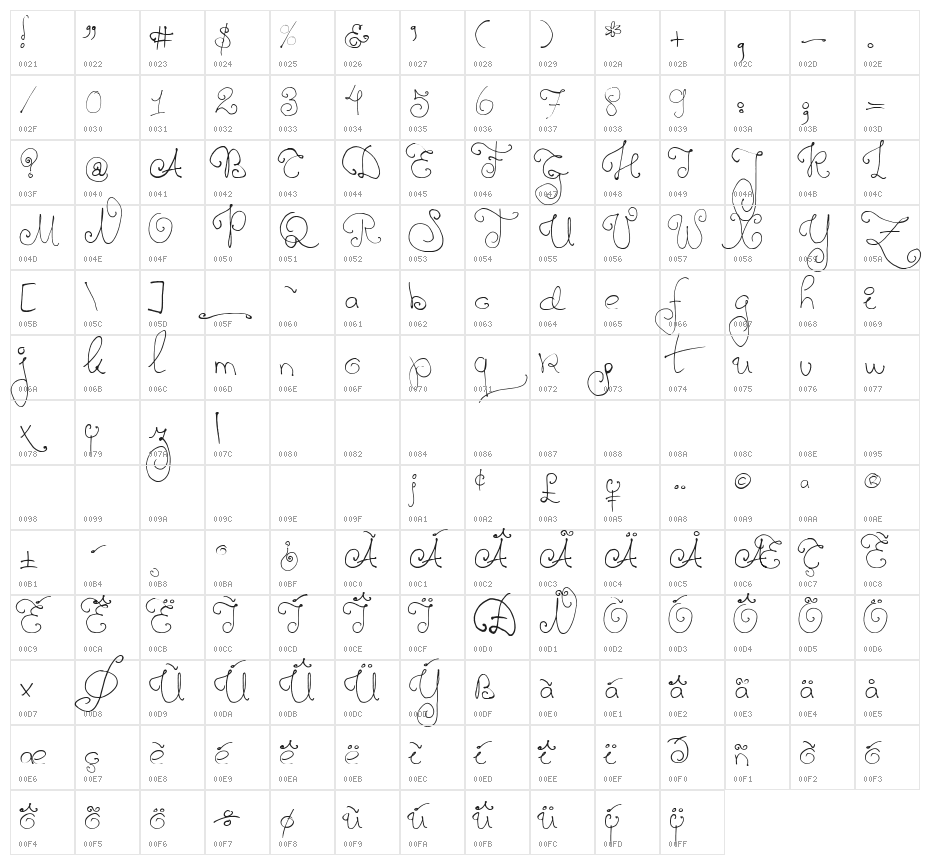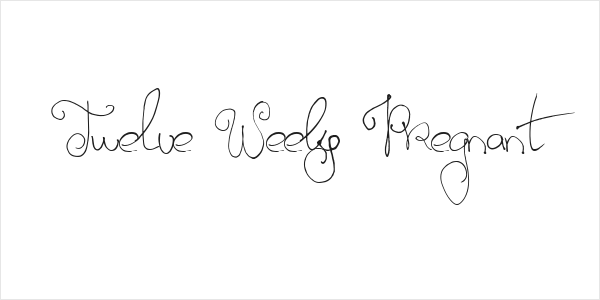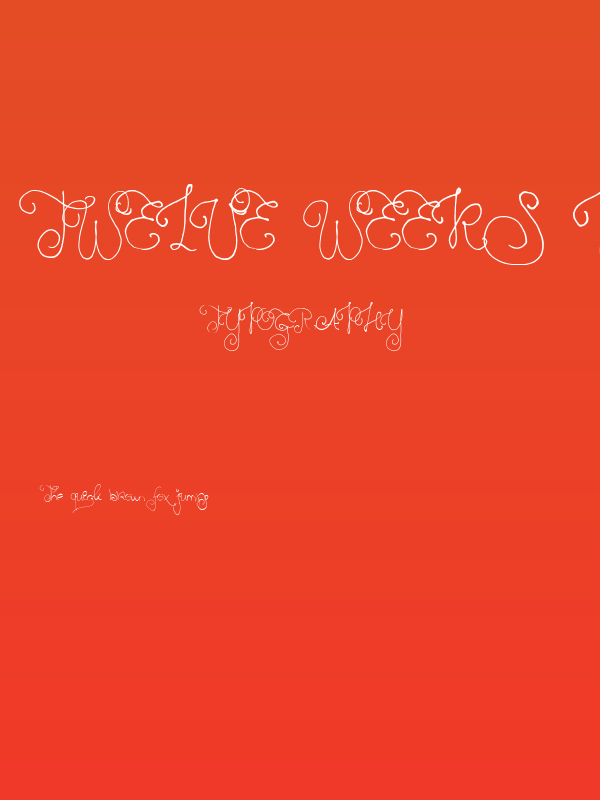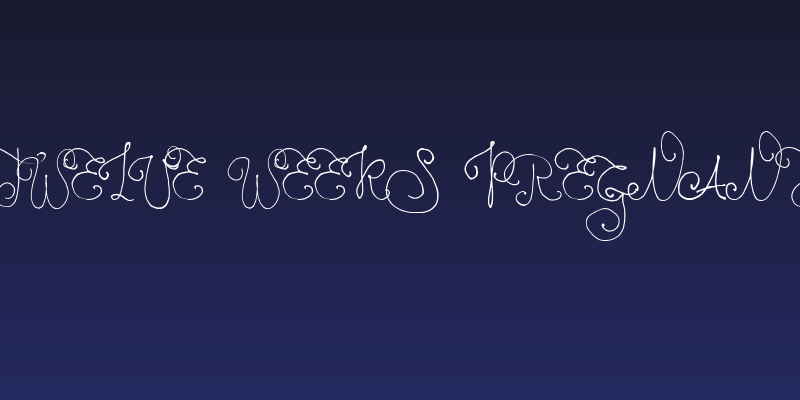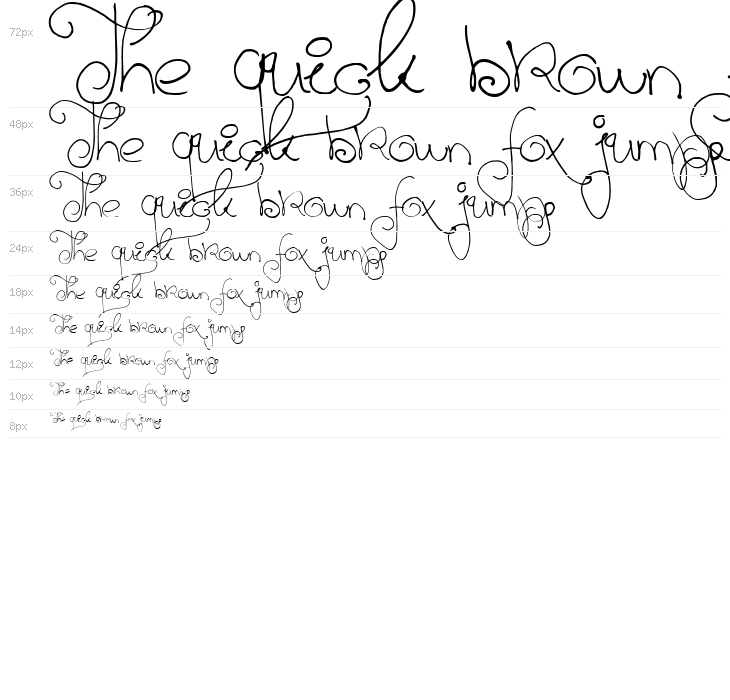
Twelve Weeks Pregnant Font
Twelve Weeks Pregnant Description
This font features an intricate and whimsical design, characterized by its looping, swirling strokes that give it a playful and artistic flair. The uppercase letters are adorned with elaborate curls and flourishes, while the lowercase letters maintain a more subdued yet still decorative style. Numbers and special characters follow the same ornate theme, making the font highly decorative. The overall appearance is reminiscent of hand-drawn calligraphy, with a touch of elegance and creativity. Its unique style makes it stand out, perfect for projects that require a distinctive and artistic touch.
| Use Case | Logos, Invitations, Artistic Projects |
| Proposed Projects | Ideal for wedding invitations, greeting cards, artistic posters, and branding that requires a personal touch. |